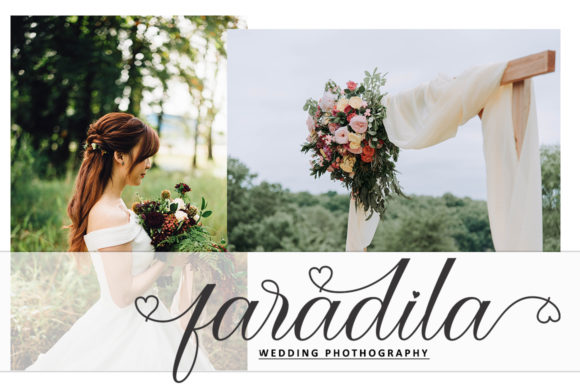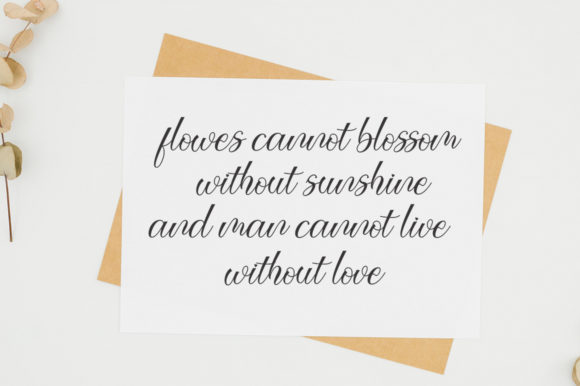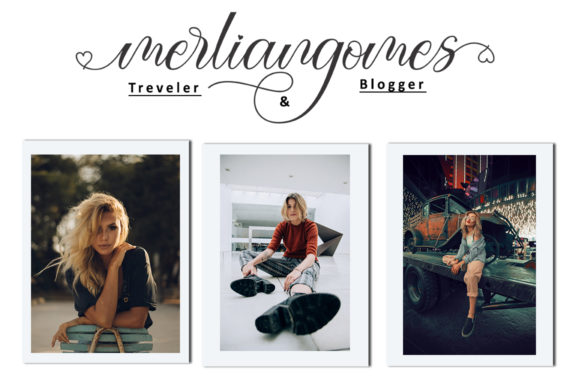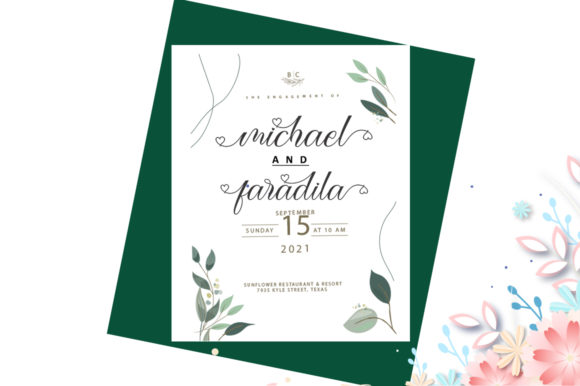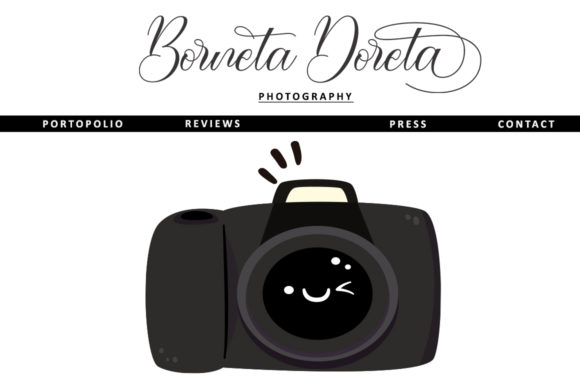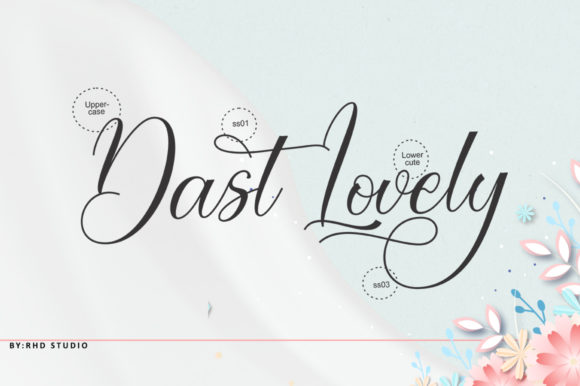
Introduction to Dast Lovely Font
Dast Lovely is a smooth, elegant and flowing handwritten font.
It has a beautifully balanced character and as a result, it fits into a wide set of designs Dast Lovely features varied baselines, smooth lines, gorgeous glyphs, and stunning alternatives.